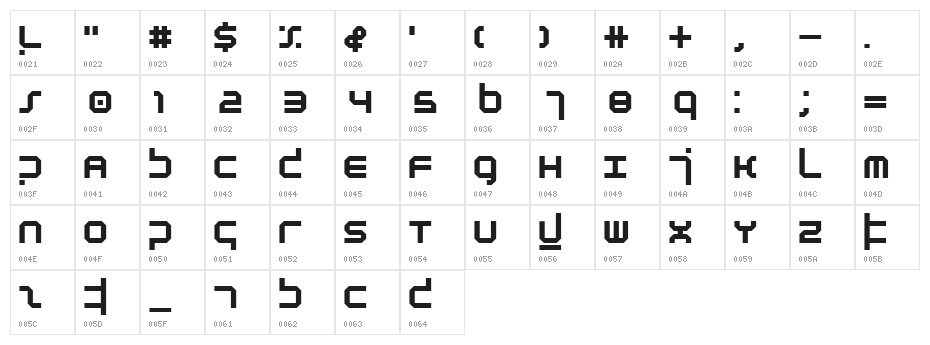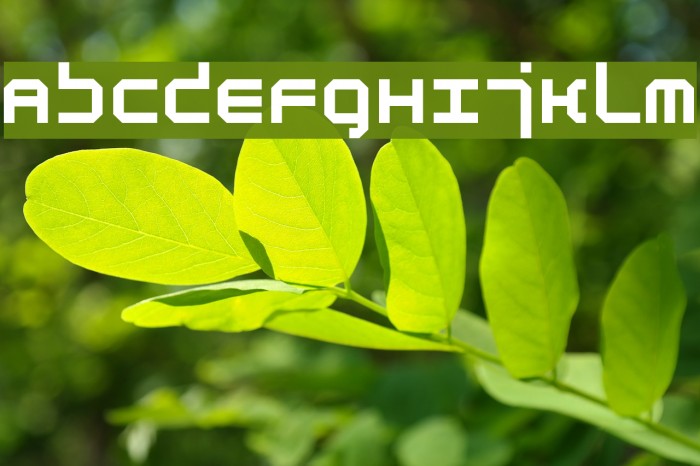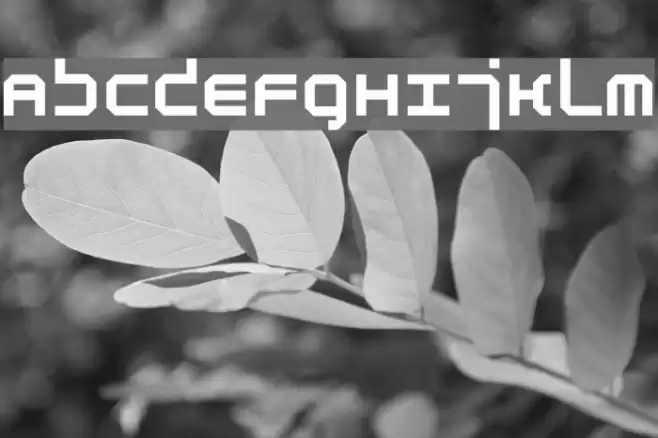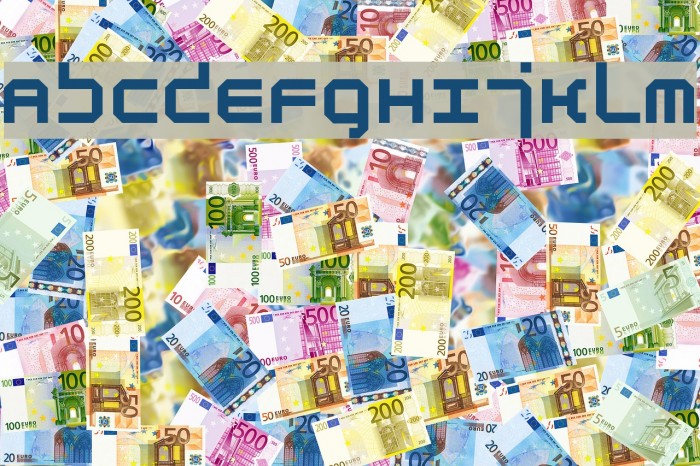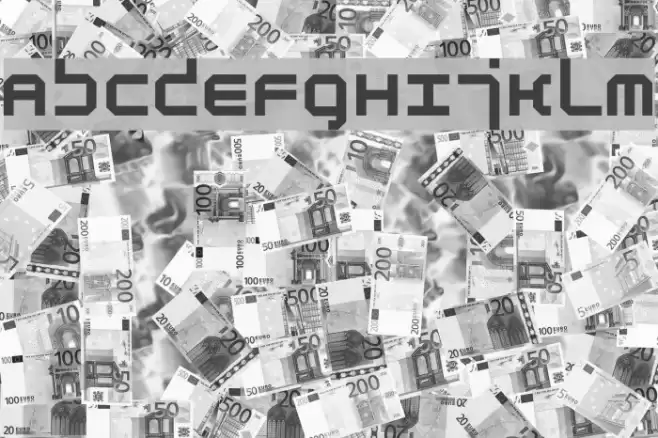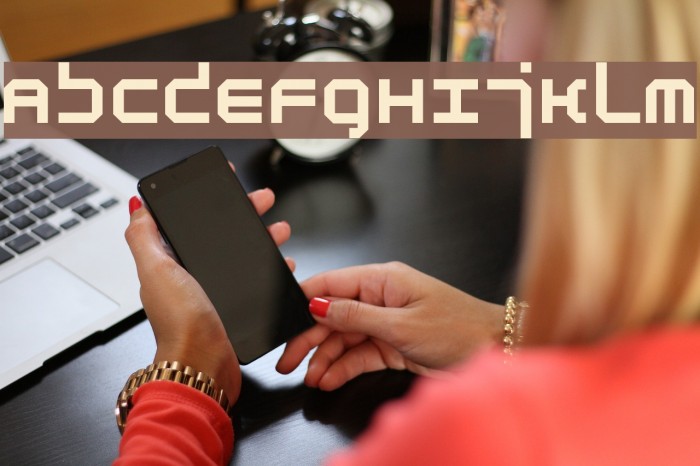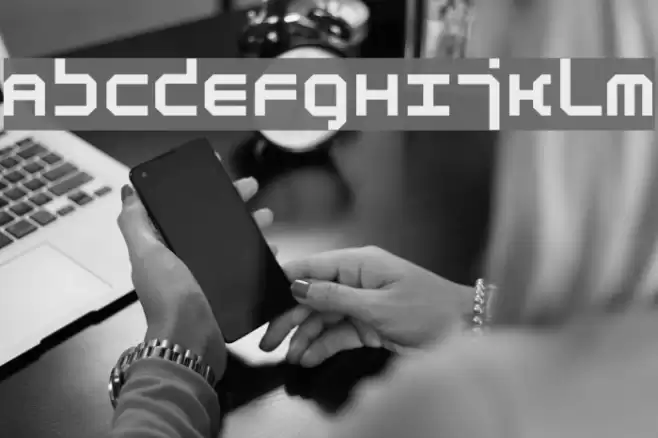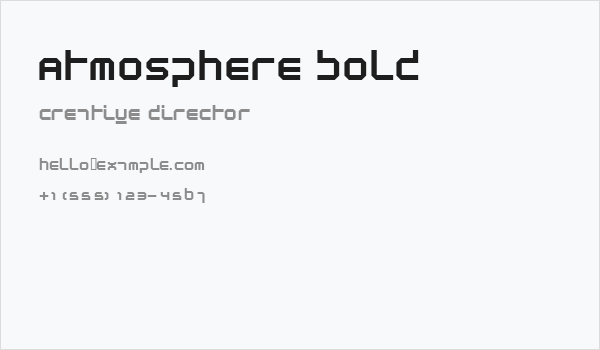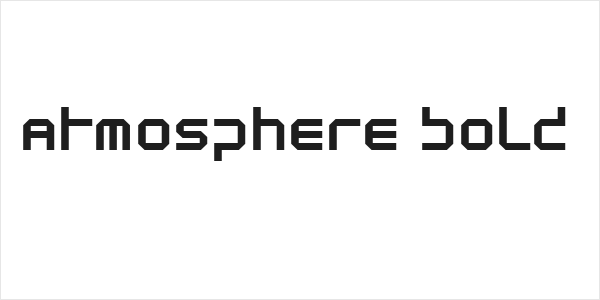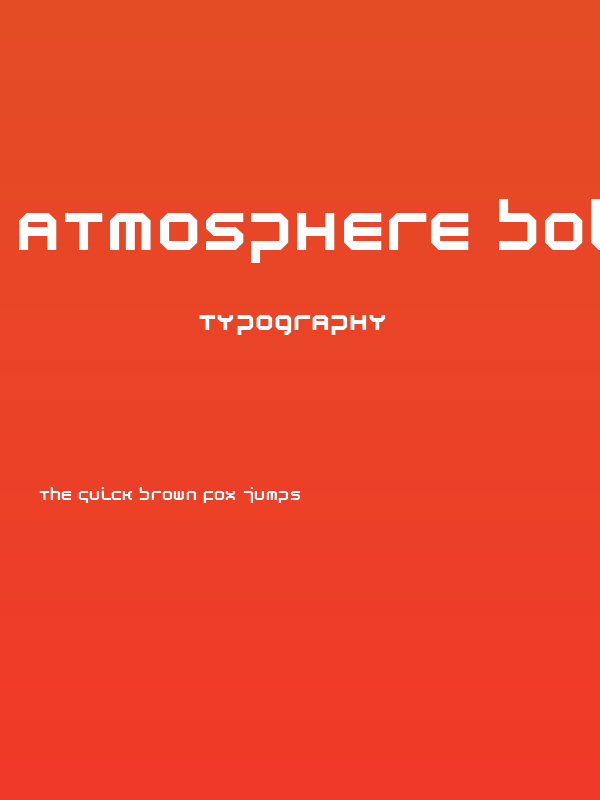
Atmosphere Bold Font
Atmosphere Bold Description
This font features a bold, geometric design with a futuristic and digital aesthetic. Each character is constructed with straight lines and sharp angles, giving it a mechanical and structured appearance. The uppercase and lowercase letters maintain a consistent height, contributing to a uniform look. The numerals and special characters follow the same design principles, ensuring a cohesive style throughout. The font's bold weight and distinct shapes make it highly legible and impactful, suitable for attention-grabbing applications.
| Proposed Projects | Ideal for technology branding, video game titles, sci-fi book covers, and digital interfaces. |